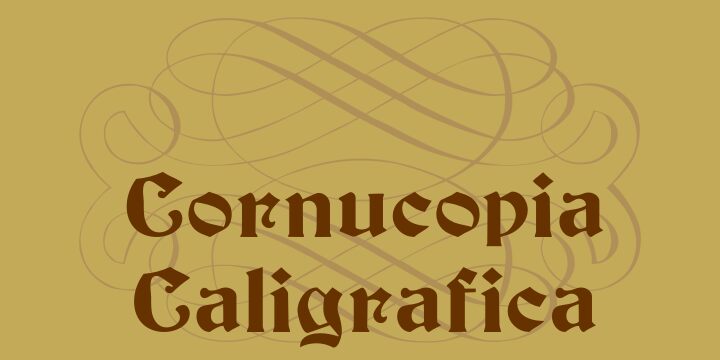
Cornucopia Caligrafica by Paulo W. is a free ornamental dingbat font featuring elaborate flourishes, cartouches, and decorative frames. Its looping strokes range from dense, ribbon-like knots to airy scrollwork with fine hairlines. Several ornaments leave open centers for custom lettering.
Designers working in wedding, luxury, or heritage markets can draw on it for invitations, packaging, and event stationery. The recurring curls and symmetrical borders can turn a name, monogram, or short inscription into part of the illustration.
Intellecta Design conducts research and develops fonts based on historical forms.